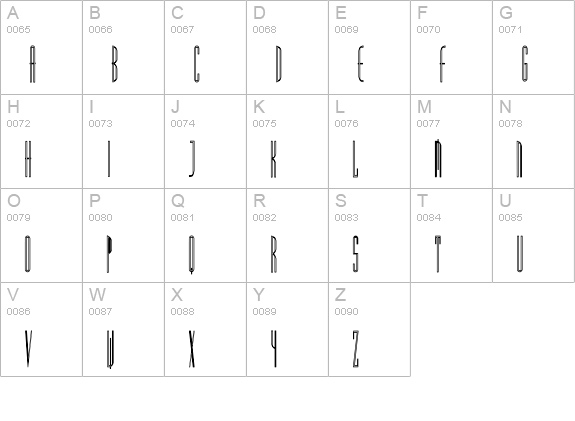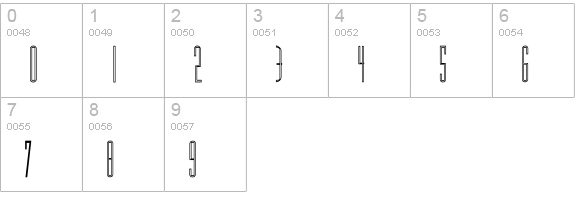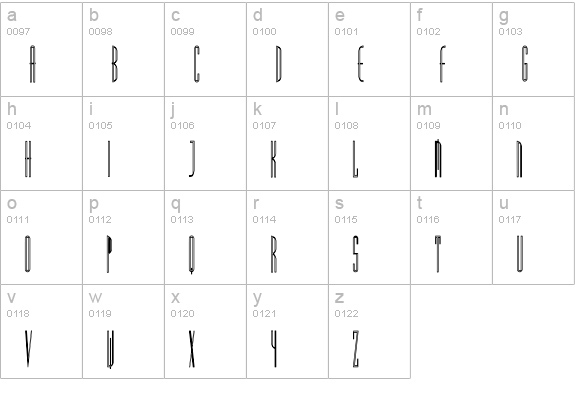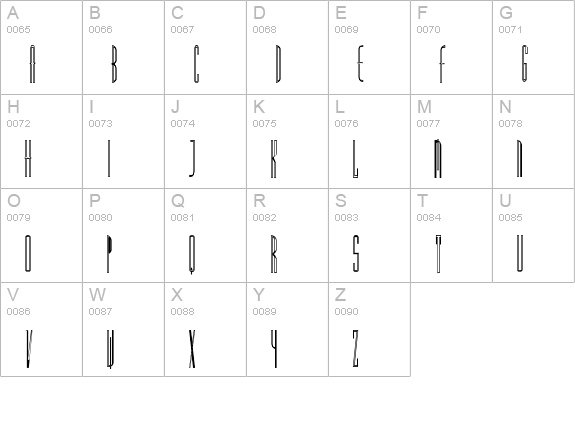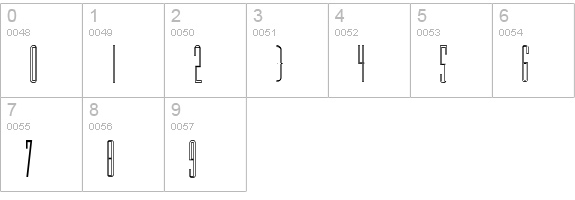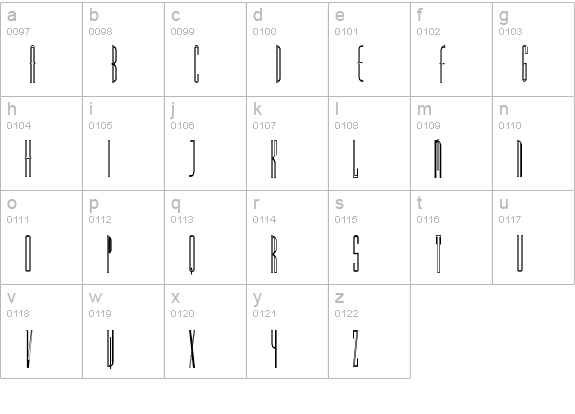
MadridHC Font Details
MadridHC is a stunning and elegant font that is sure to catch anyone's attention. With its sleek and modern design, this font is perfect for a wide range of projects, from branding and logos to invitations and advertisements. Its clean and crisp lines make it highly legible, ensuring that your message will always come across clearly. But what sets MadridHC apart from other fonts is that it is completely free. Yes, you read that right! This amazing font is freely available to download at FontsMarket.com, making it accessible to everyone, regardless of their budget. So whether you are a professional designer or a hobbyist looking to add a touch of sophistication to your creations, MadridHC is the perfect choice. Not only is MadridHC free, but it also offers a wide range of glyphs and characters, allowing you to create unique and personalized designs. From stylish ligatures to alternative letterforms, this font gives you the freedom to experiment and create something truly special. So why wait? Download MadridHC today from FontsMarket.com and elevate your design projects with this fabulous and free font. Get ready to impress your audience with its timeless elegance and versatility. MadridHC is truly a font that stands out from the crowd, and now it can be yours for free.